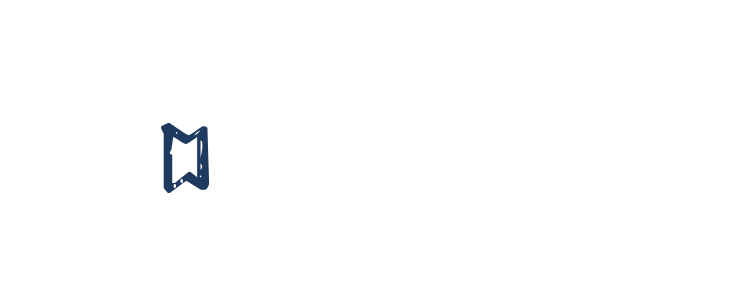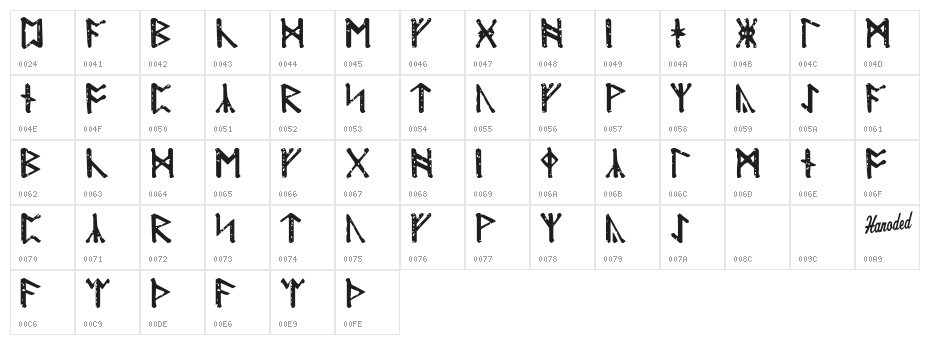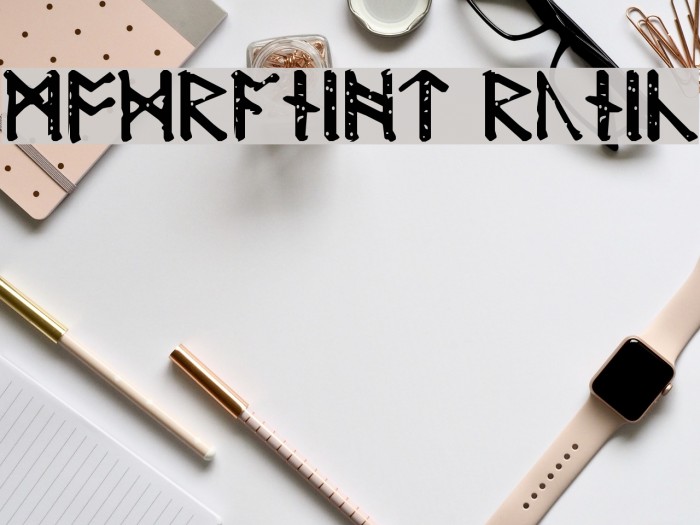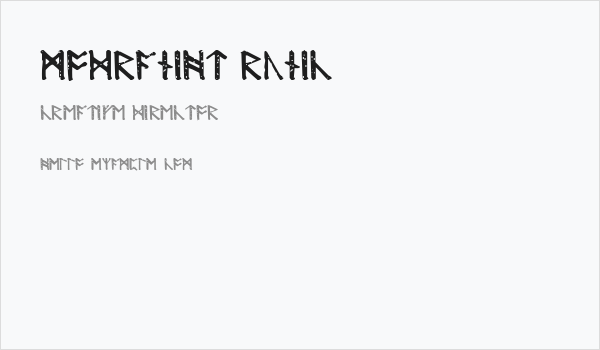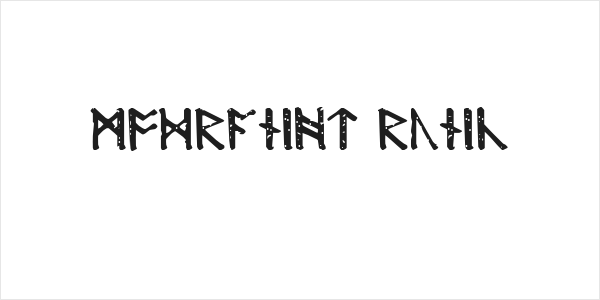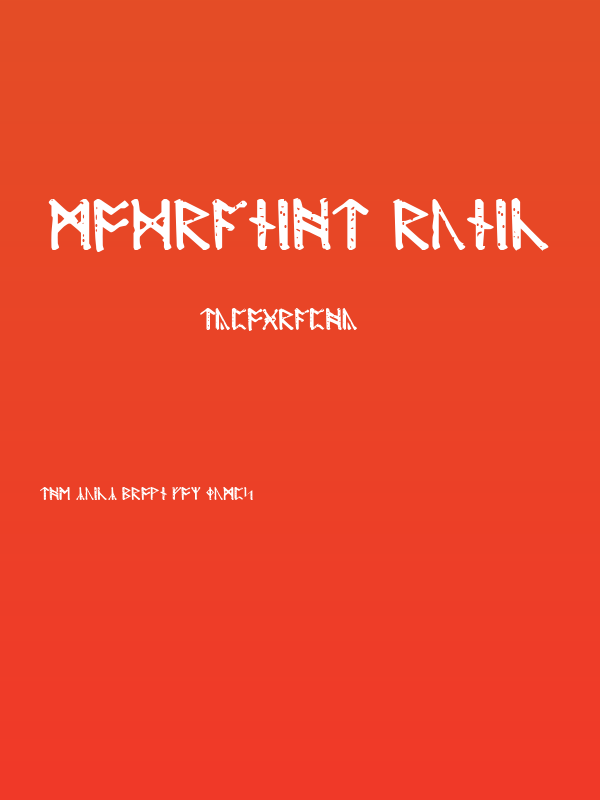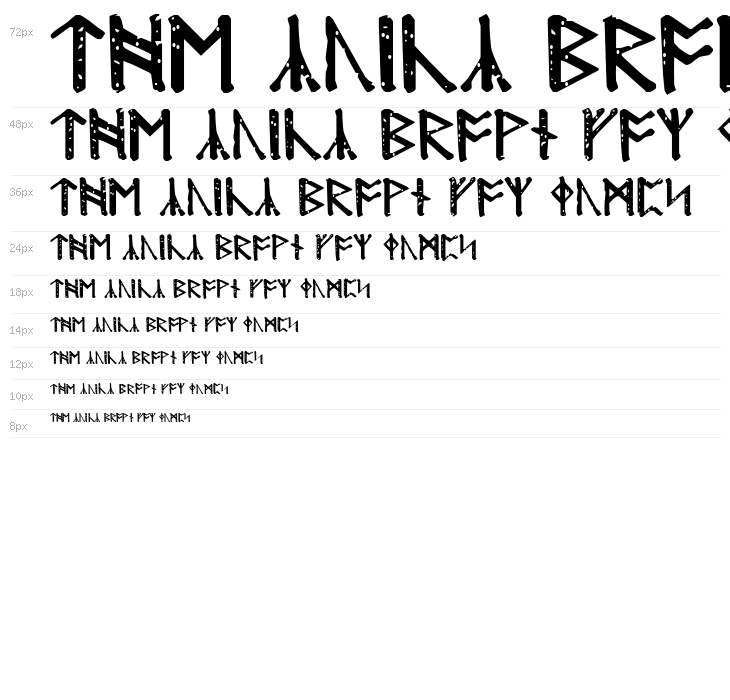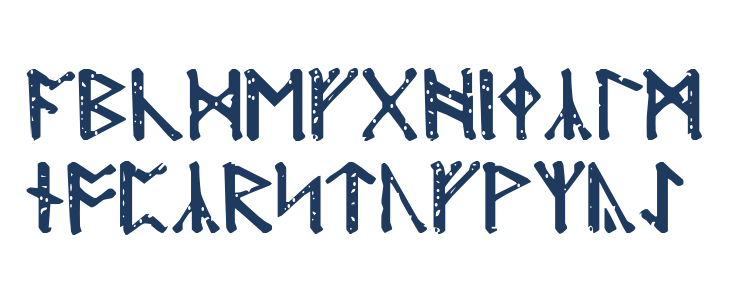
Modraniht Runic Font
Modraniht Runic Description
This font is a decorative typeface inspired by ancient runic alphabets, featuring angular and geometric shapes that evoke a sense of mystery and antiquity. Each character is crafted with a series of straight lines and sharp angles, often incorporating unique embellishments that mimic the appearance of traditional runes. The font's design is bold and striking, with a consistent thickness throughout each letterform, creating a uniform and cohesive look. The characters are evenly spaced, providing a balanced and readable appearance despite the intricate design. This typeface is ideal for projects that aim to convey a historical or mystical theme, capturing the essence of ancient scripts while maintaining modern legibility.
| Use Case | Logos, Headlines, Themed Events |
| Proposed Projects | Ideal for fantasy-themed designs, historical reenactments, game titles, or any project seeking a mystical or ancient aesthetic. |